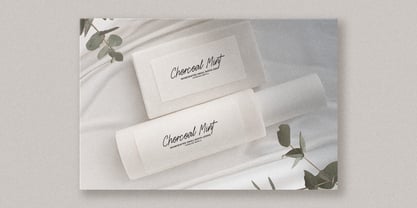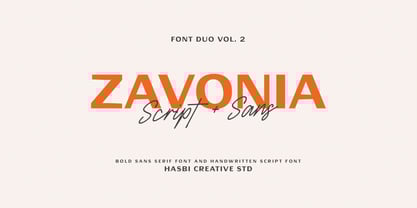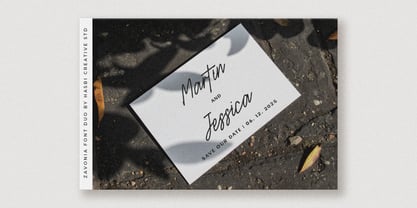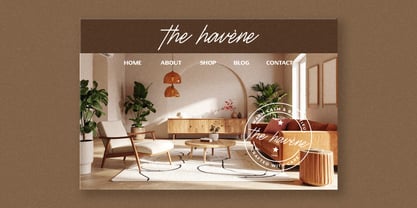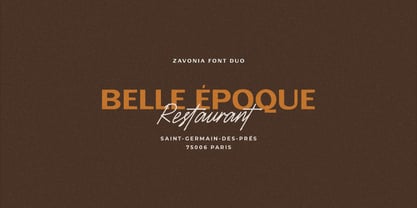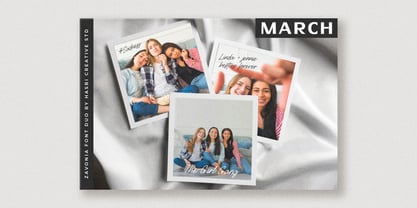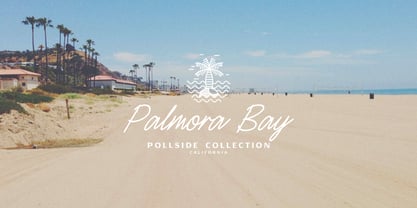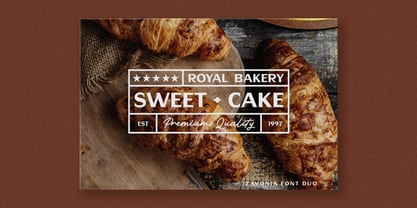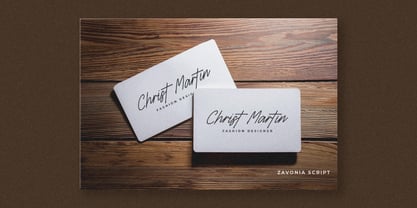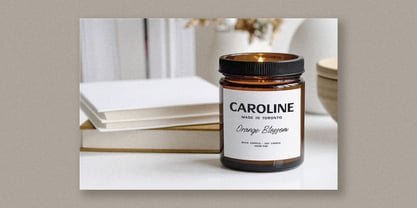
Zavonia
by Hasbi Creative
The Zavonia Font Family was designed by Hasbi Azmi and published by Hasbi Creative. Zavonia contains 2 styles and family package options. More about this family
Zavonia is a modern and elegant font duo featuring a stylish handwritten script and a clean geometric sans serif. Perfectly crafted for branding, logo design, fashion packaging, and social media graphics, this typeface offers a refined yet versatile aesthetic.
Designed for luxury brands, feminine content, lifestyle blogs, and editorial layouts, Zavonia adds sophistication to everything from wedding invitations to Instagram posts.
Perfect For:
- Branding & Logos
- Fashion & Beauty Packaging
- Instagram & Canva Templates
- Wedding Stationery
- Editorial Titles & Magazine Spreads
- Blog Headers & Social Banners